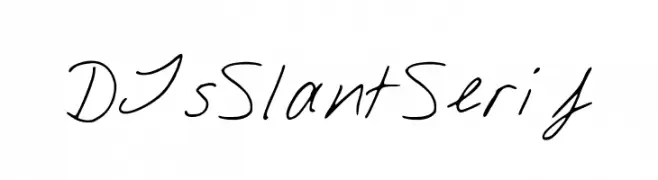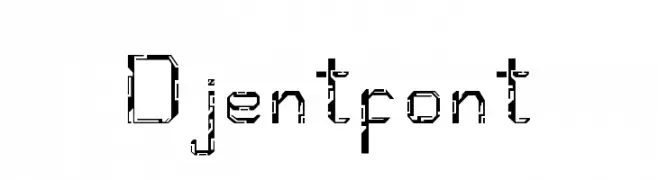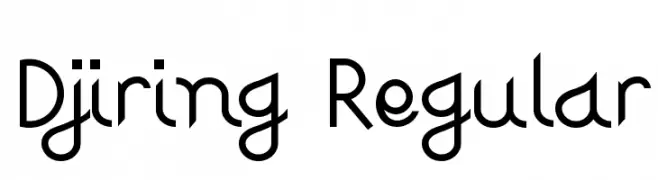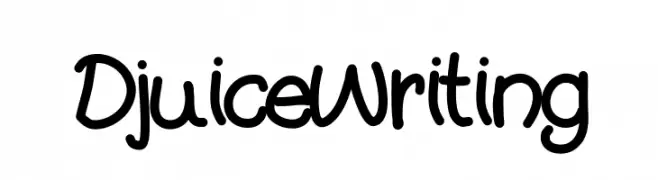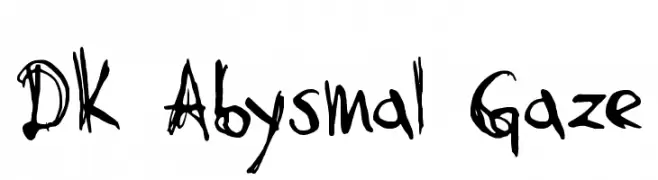
A whimsical, hand-drawn font with curly embellishments and a playful style.
A playful, handwritten font with a casual and whimsical style.
A modern, industrial font with angular shapes and intricate cut-out patterns.
A modern geometric font with clean lines and a professional appearance.
Highly decorative and ornamental motif-based font.
Stencil-style DJ portraits as font glyphs.
A dynamic, slanted handwritten font with a casual elegance.